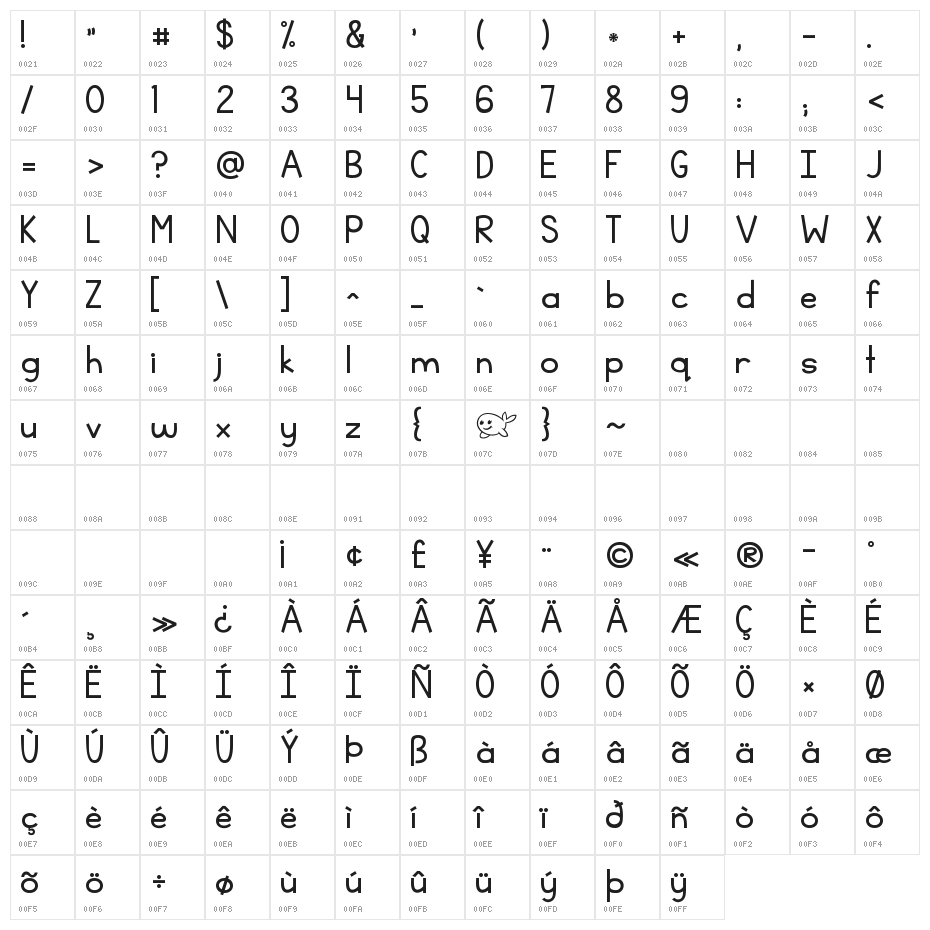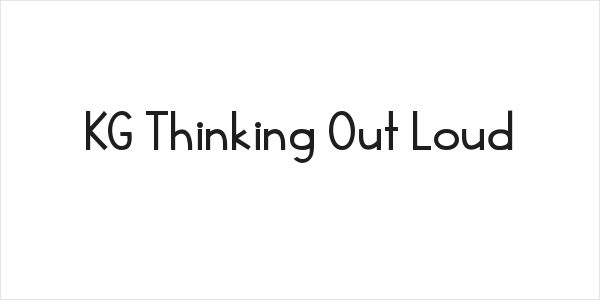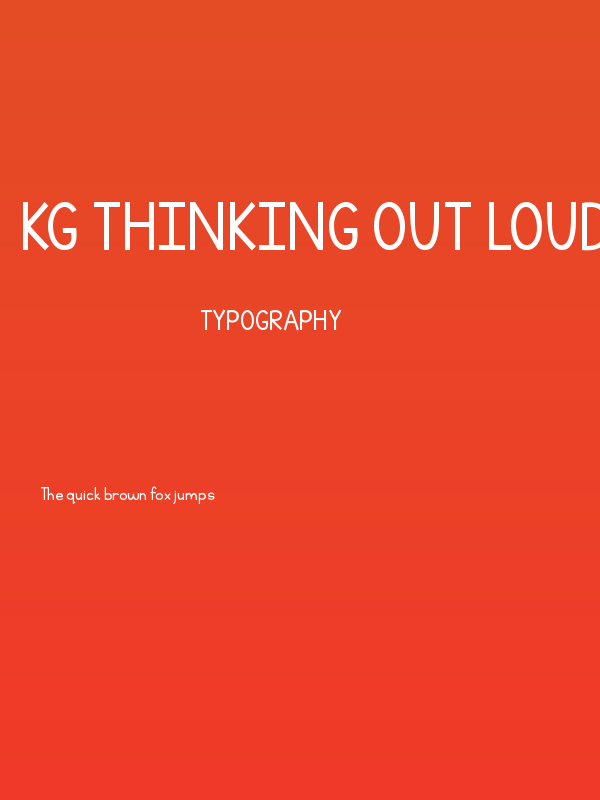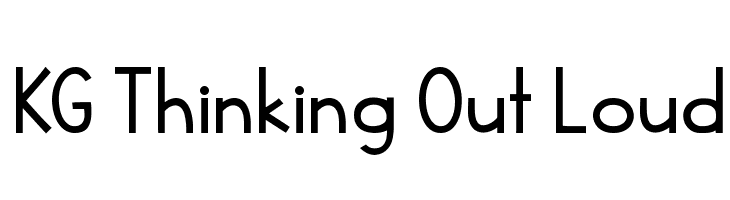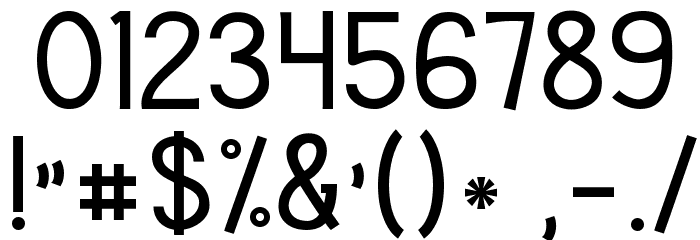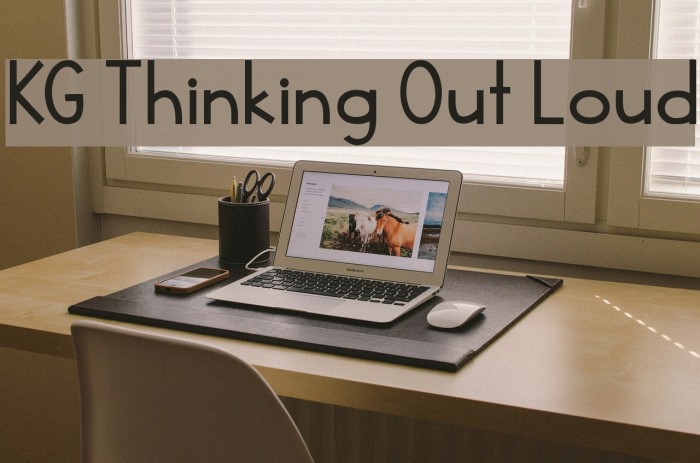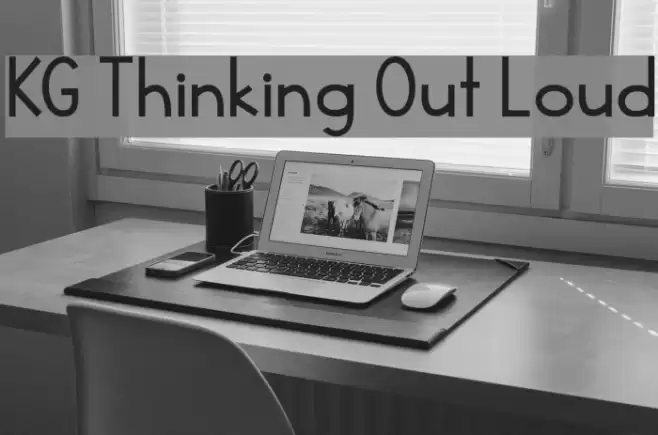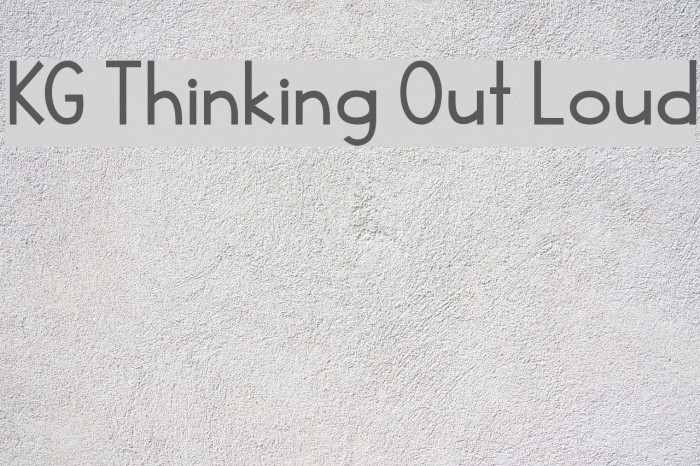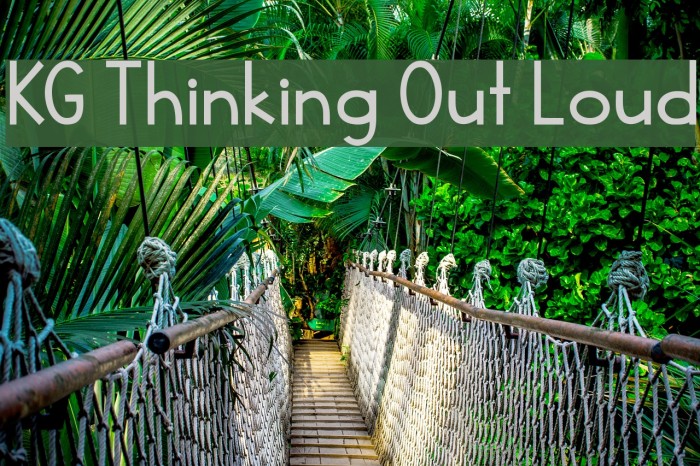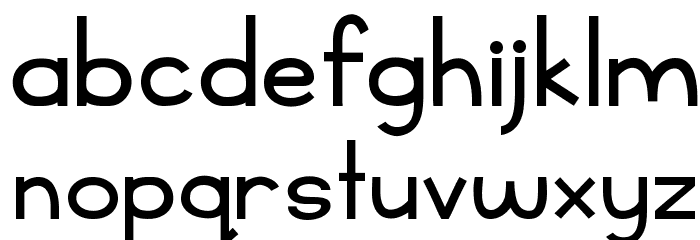
KG Thinking Out Loud Font
KG Thinking Out Loud Description
This font features a clean and modern sans-serif style with a geometric structure. The characters are well-balanced, with consistent stroke widths that provide a harmonious appearance. The uppercase letters are bold and assertive, while the lowercase letters maintain a friendly and approachable feel. The numerals are clear and easy to read, making them suitable for various applications. Special characters are included, offering versatility for different contexts. The overall design is straightforward yet stylish, making it ideal for contemporary projects.
| Use Case | Headlines, Body text, Logos |
| Proposed Projects | Ideal for branding, advertising, web design, and editorial layouts due to its modern and clean appearance. |